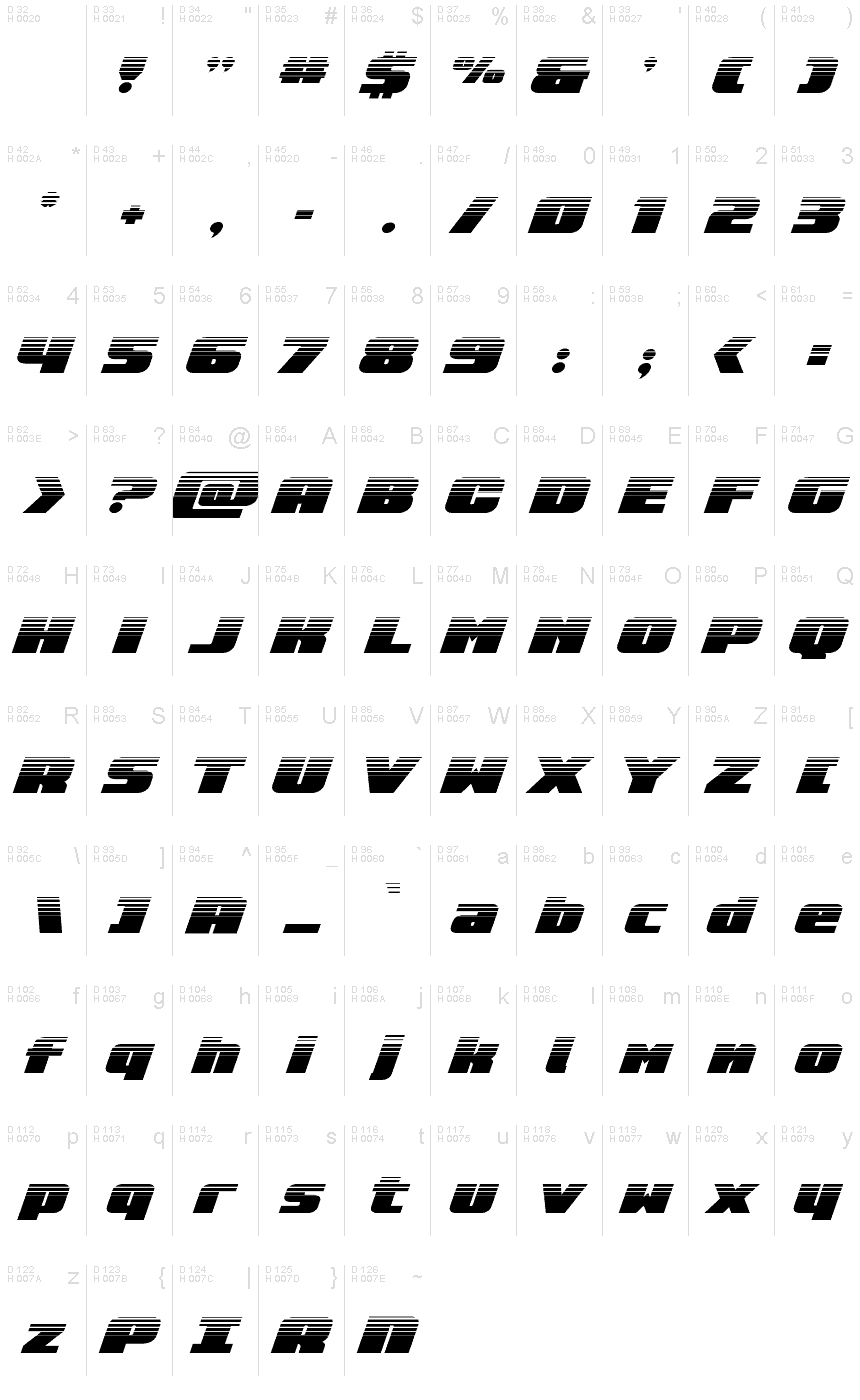
Rapid Response LC Halftone Ita
Rapid Response LC Halftone Italic font by Iconian Fonts is a futuristic sans serif typeface with an angular design and expanded width. The bold font uniquely combines the elements of energy, motion, and contemporary technology aesthetic which make it equally ideal for both web and print projects.